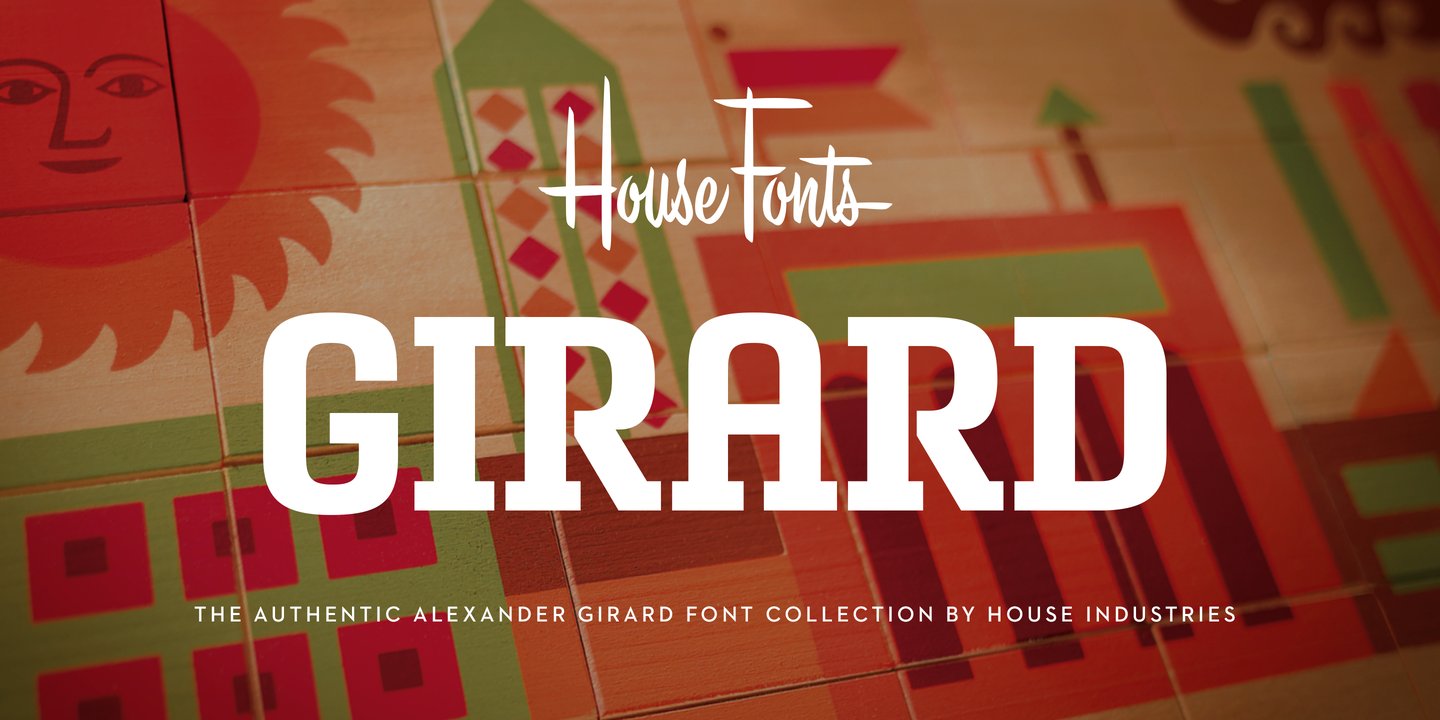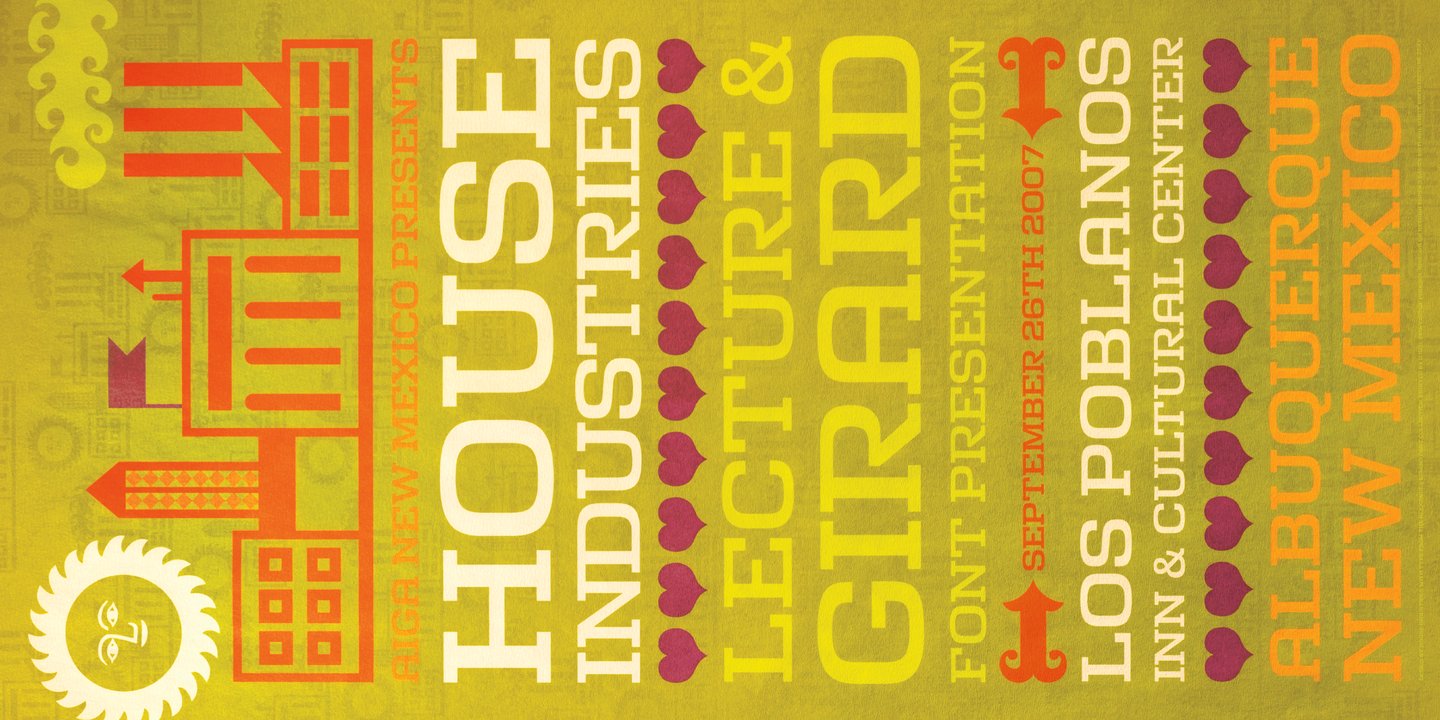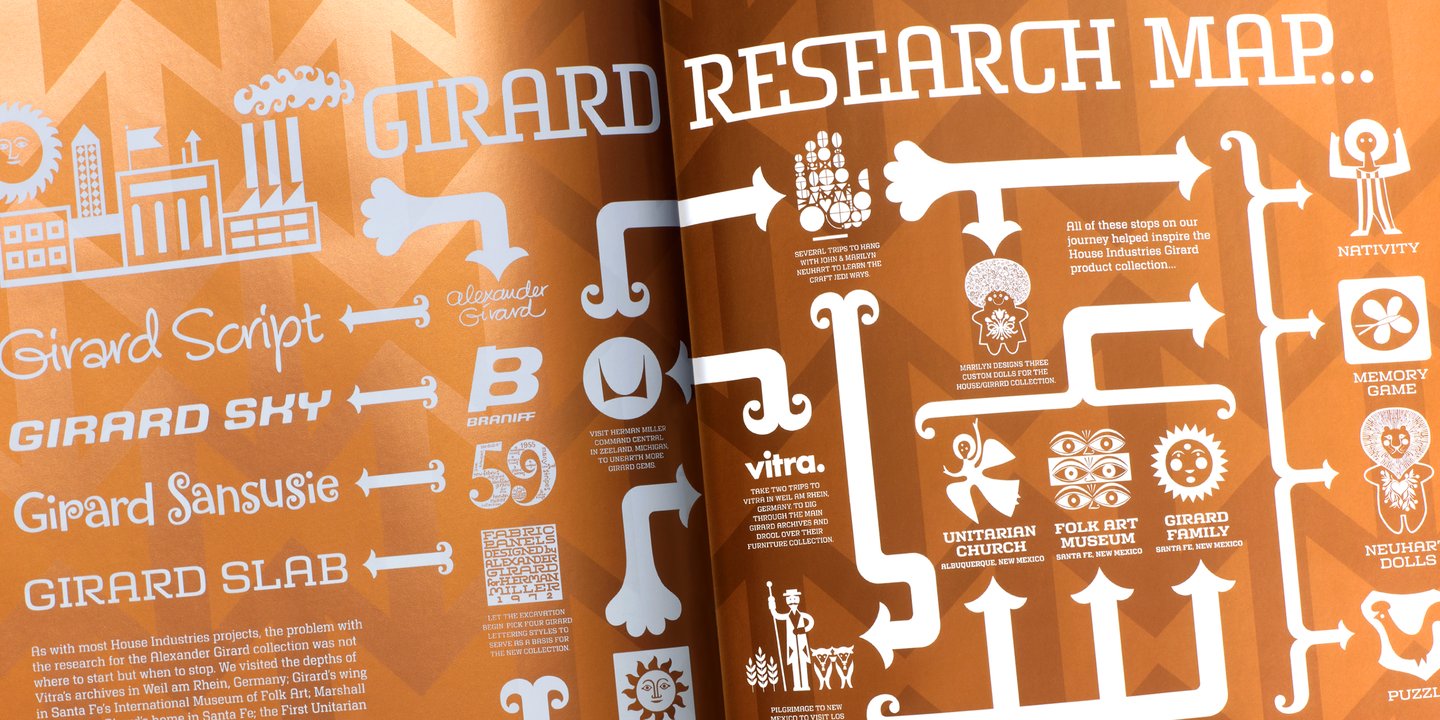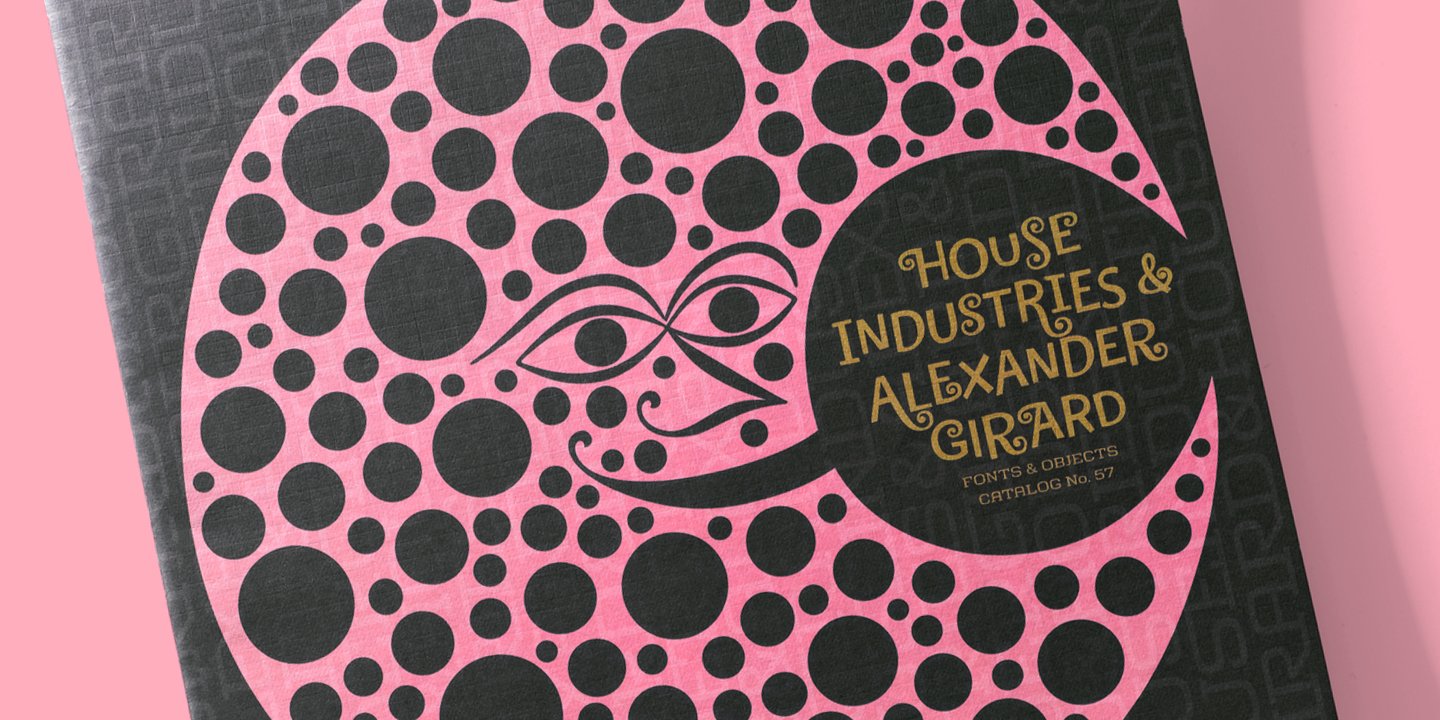
About the Girard Font
About Girard Font Family Whatever the medium, Girard’s love for typography was the common thread that wove his work together. We are honored that the Girard family has entrusted us to celebrate and expand upon the legacy of this design icon with this collection of fonts. The Girard Slab family gracefully synthesizes illustrative sensibilities into a practical typographic framework.
Slab’s three widths and four weights ensure versatility in a modern editorial setting while its gentle curves transcend the sterility of traditional typography to add an unprecedented warmth and personality. From boutique chocolate packaging to the titling sequence for an indie vegan superhero cartoon, Girard Script deftly adds a contemporary sophistication to text and display settings.
Inspired by a workhorse lettering style that helped Alexander Girard implement thousands of design elements in his overhaul of the Braniff identity system, Girard Sky pulls its weight in any contemporary application. In Girard Sansusie, each character stands alone as an illustrative element while coming together with its counterparts as a whimsical yet functional typeface.
FEATURES: The ligatures feature substitutes specially-drawn letter combinations that combine two, three or even four characters to create smoother transitions and simulate lettering sensibilities.Girard Slab’s three widths and four weights ensure versatility in a modern editorial setting while its gentle curves transcend the sterility of traditional typography to add an unprecedented warmth and personality.Copious alternate characters and “smart” OpenType programming allow Sansusie to escape the rigid confines of typography to come alive as if flowing from Girard’s sketchpad.